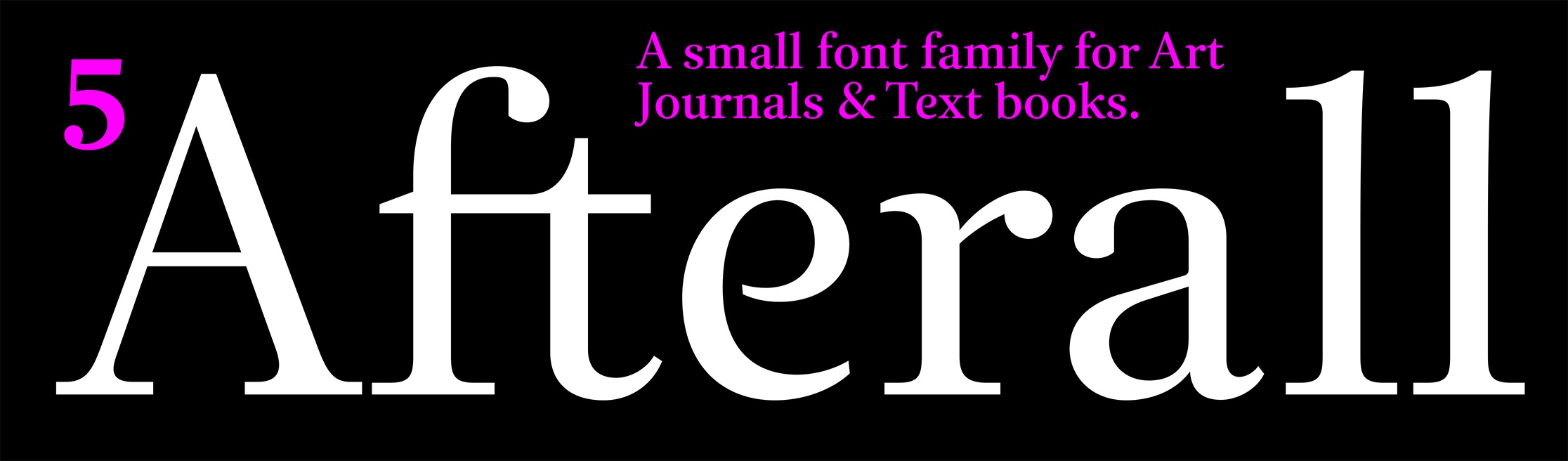
Afterall Font
Afterall Font is perfect for concluding event branding, final report presentations, end-of-year publications, graduation ceremony materials, closure consulting logos, summary document headers, completion certificate design, and reflective lifestyle communications.
What makes Afterall Font exciting is its contemplative finality that embodies the wisdom and satisfaction of completion, reflection, and meaningful conclusions. The font features resolute letterforms with thoughtful proportions and definitive character that evoke finish lines, sunset reflections, and the profound peace of accomplished goals. Its distinctive conclusive styling and reflective appeal communicate closure, achievement, and thoughtful resolution, making every message feel touched by the clarity that comes with completion and enriched by the wisdom of experience.
The Afterall Font family includes regular weight with uppercase and lowercase letters, numerals, punctuation marks, and special characters. Premium versions often feature contemplative alternates and resolution-inspired elements that enhance the reflective, conclusive aesthetic perfect for completion and summary applications.
The reflective character of Afterall Font makes it particularly valuable for consulting firms, educational institutions, and completion ceremony organizers. Its excellent readability ensures final presentations and summary documents remain clear while maintaining the distinctive conclusive aesthetic that appeals to audiences seeking meaningful closure and celebration of achievements.
Project completion specialists appreciate how Afterall Font effortlessly conveys accomplished satisfaction and thoughtful resolution. The font's resolute proportions and reflective details create satisfying brand materials that establish connections with audiences who value completion, achievement recognition, and the thoughtful wisdom gained through successful project closure.